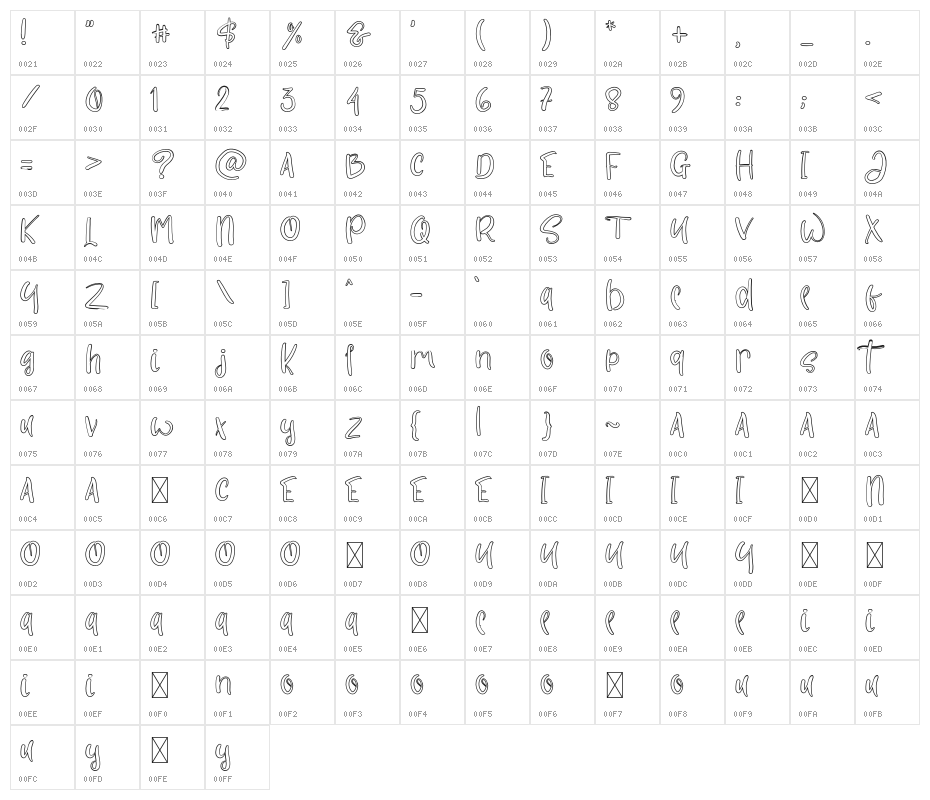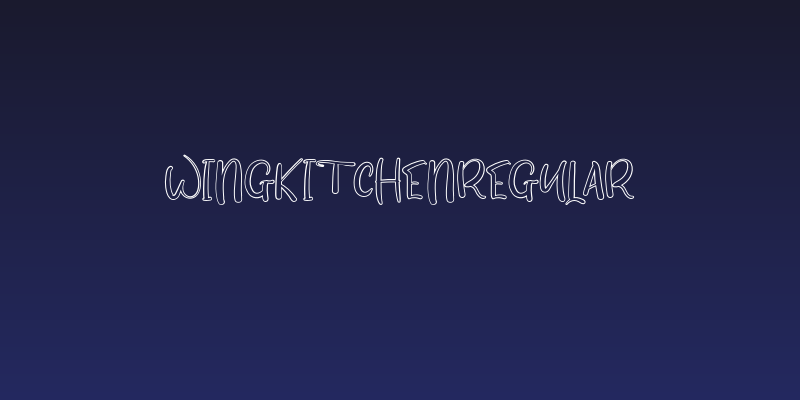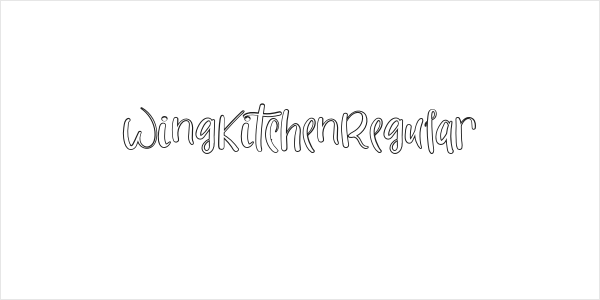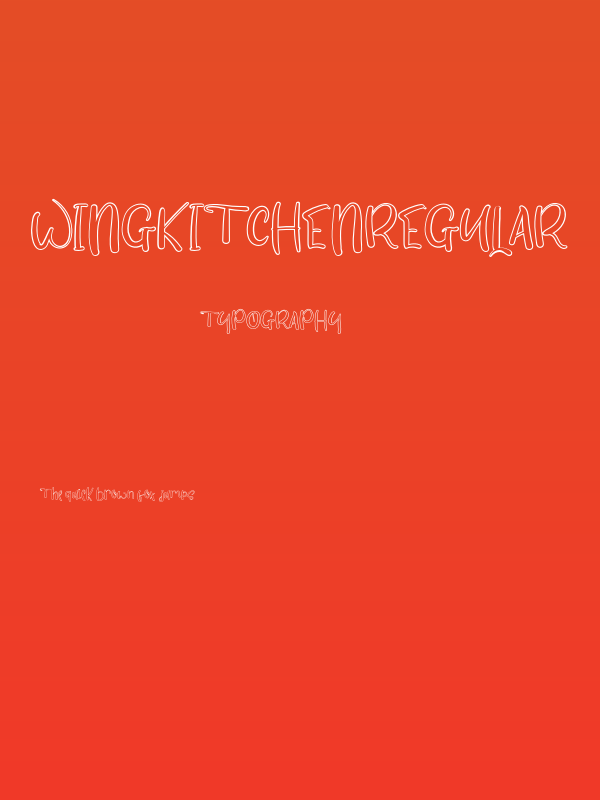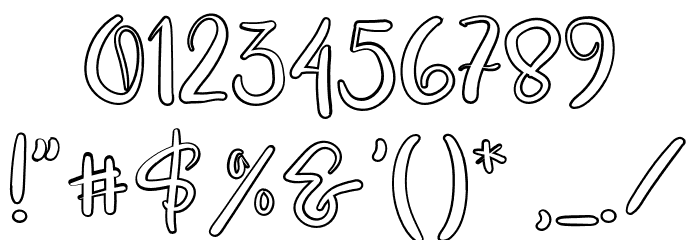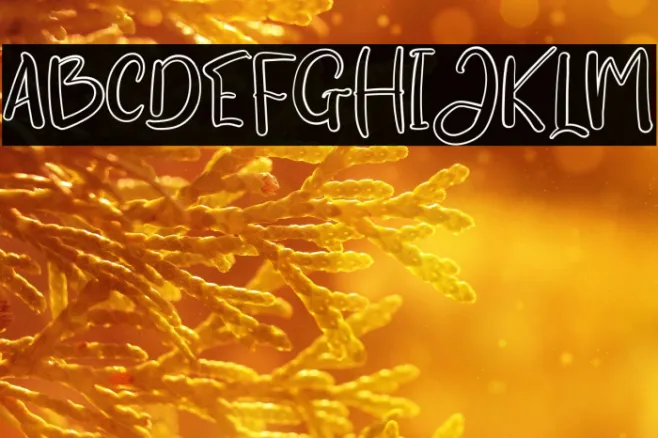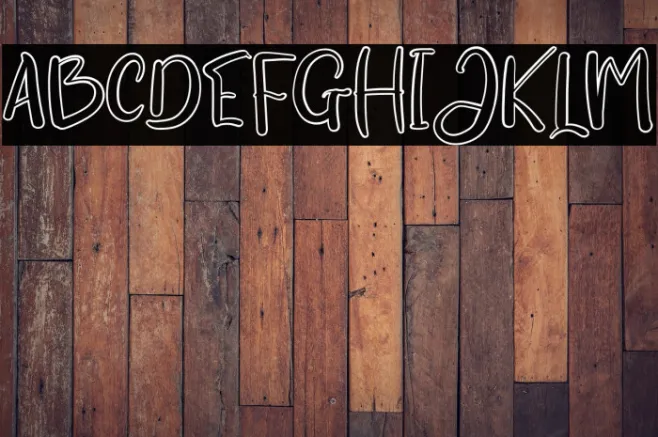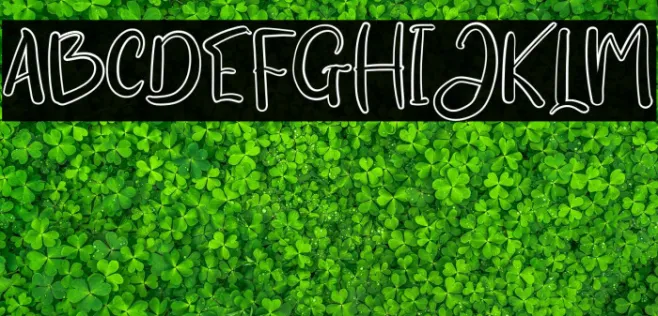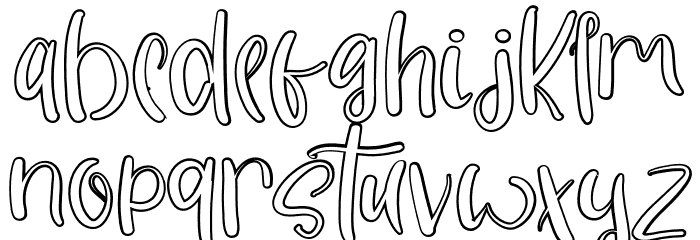
WingKitchenRegular Font
WingKitchenRegular Description
This font features a playful and whimsical style with a handwritten appearance. The letters are characterized by their rounded, flowing lines and a casual, informal look. Each character has a consistent stroke width, giving it a uniform appearance. The uppercase and lowercase letters maintain a cohesive design, with slight variations that add to the font's charm. The numerals and special characters are crafted to match the overall aesthetic, making it suitable for creative and fun projects. The font's unique style makes it stand out, while still being legible and versatile.
| Proposed Projects | Ideal for greeting cards, children's books, playful branding, and creative posters. |